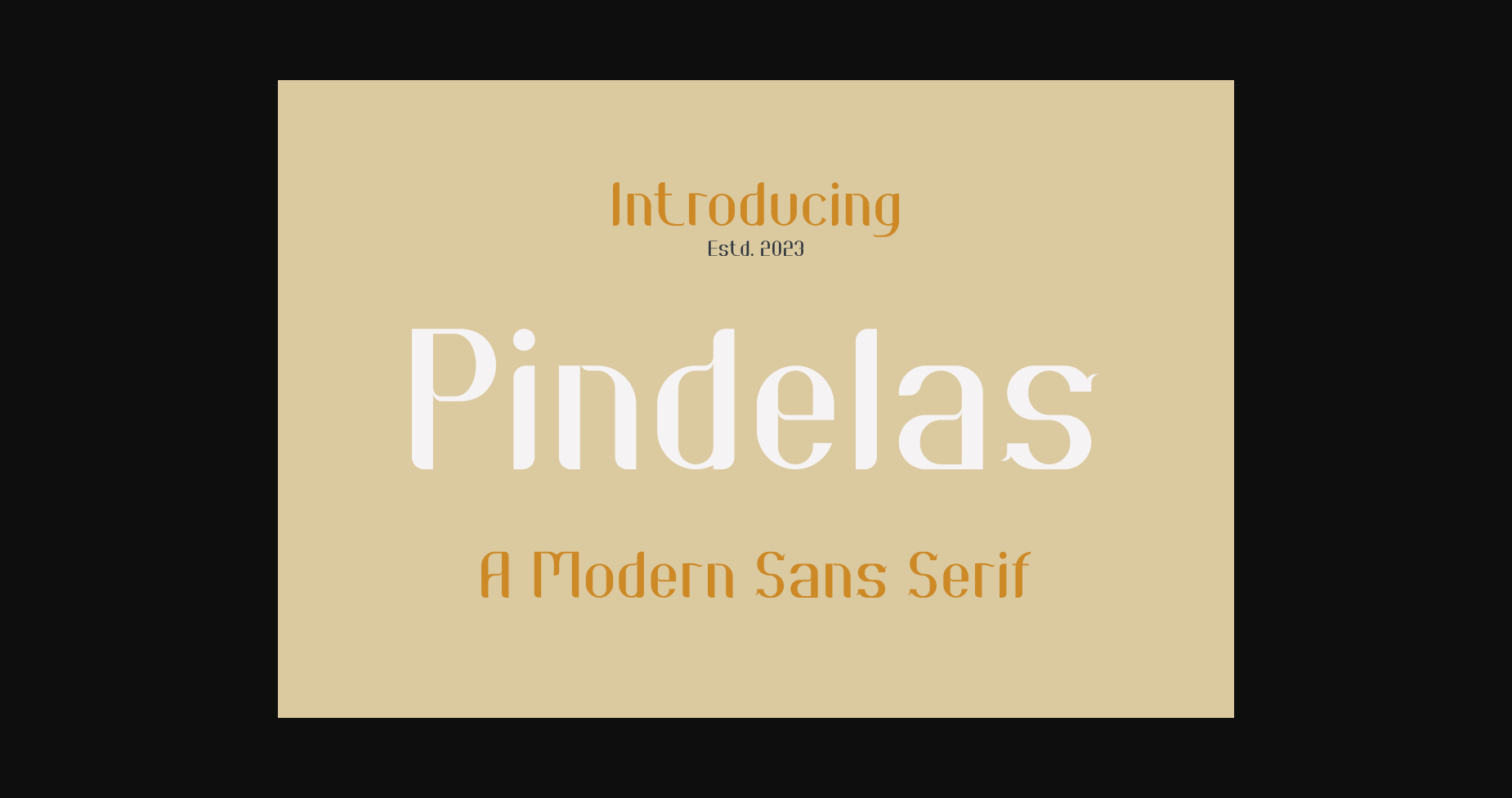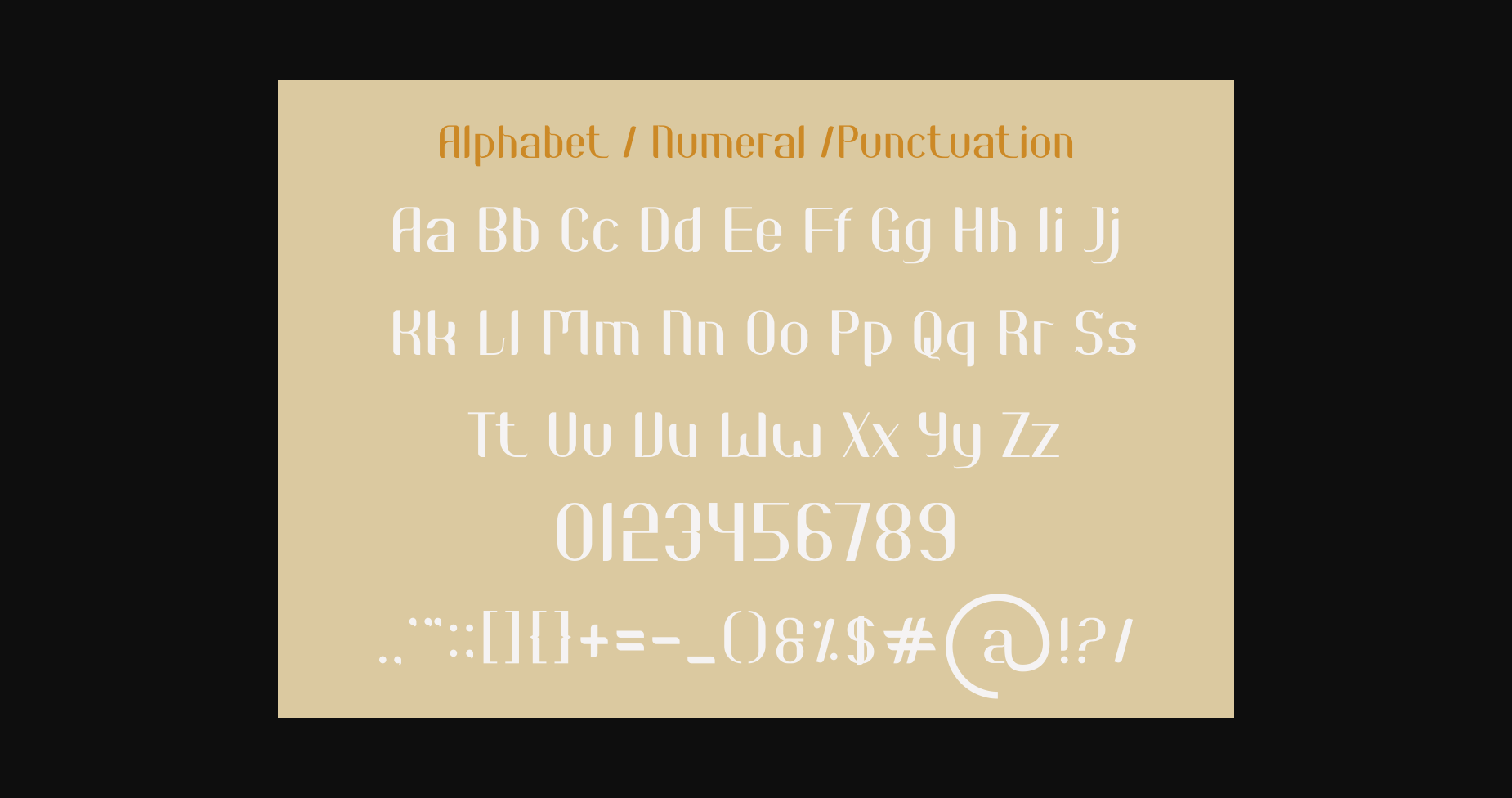
About Pindelas Font
Pindelas is a bold and authentic display font. The font is suitable for any branding project like logo, t-shirt printing, esports, and many more. outstanding in a wide range of contexts.